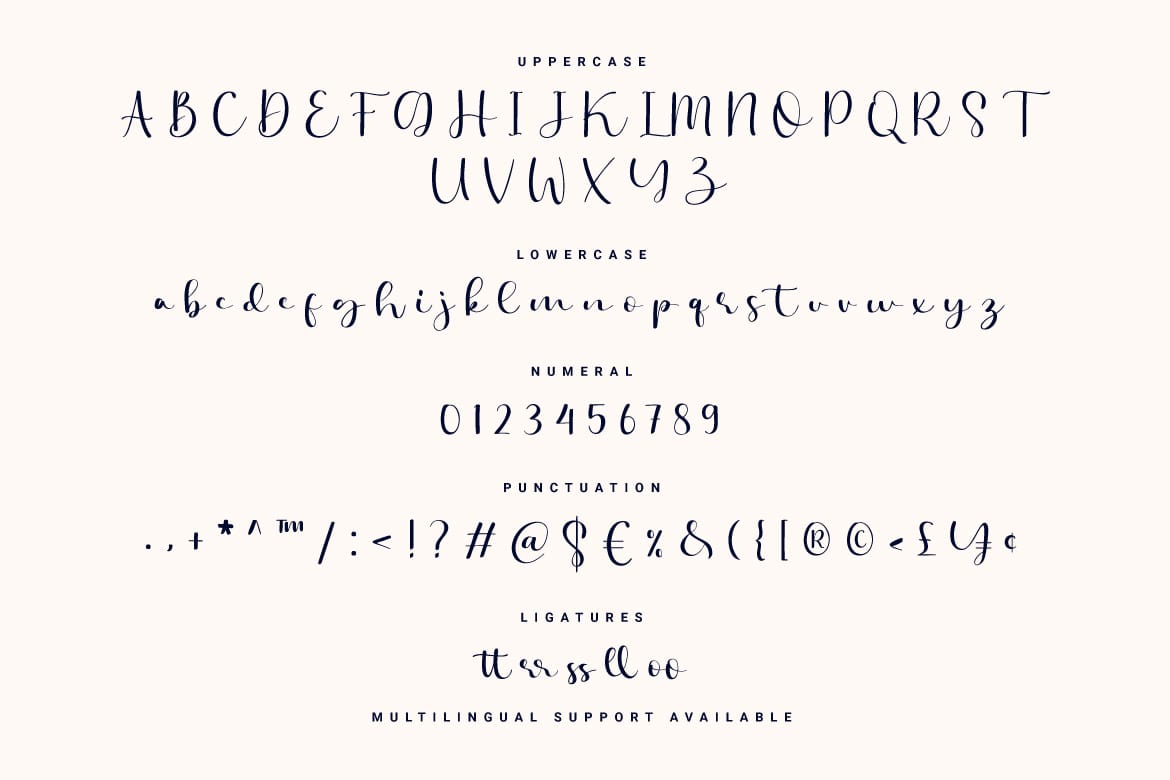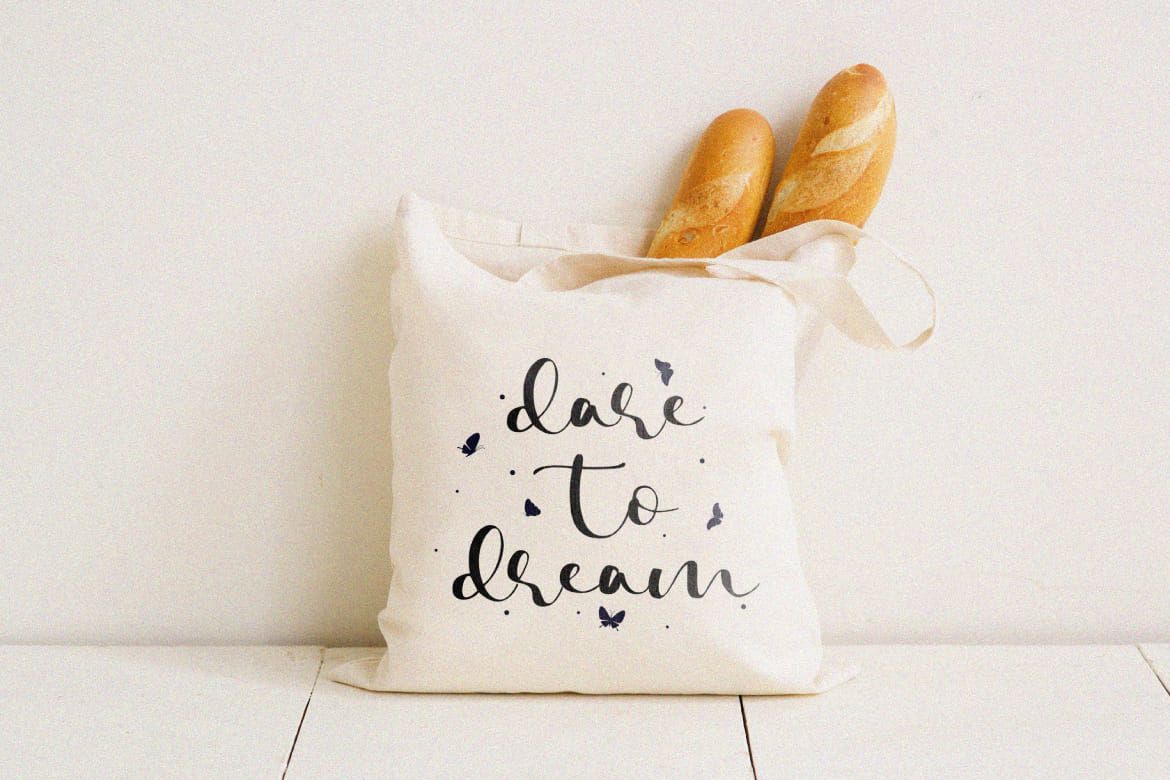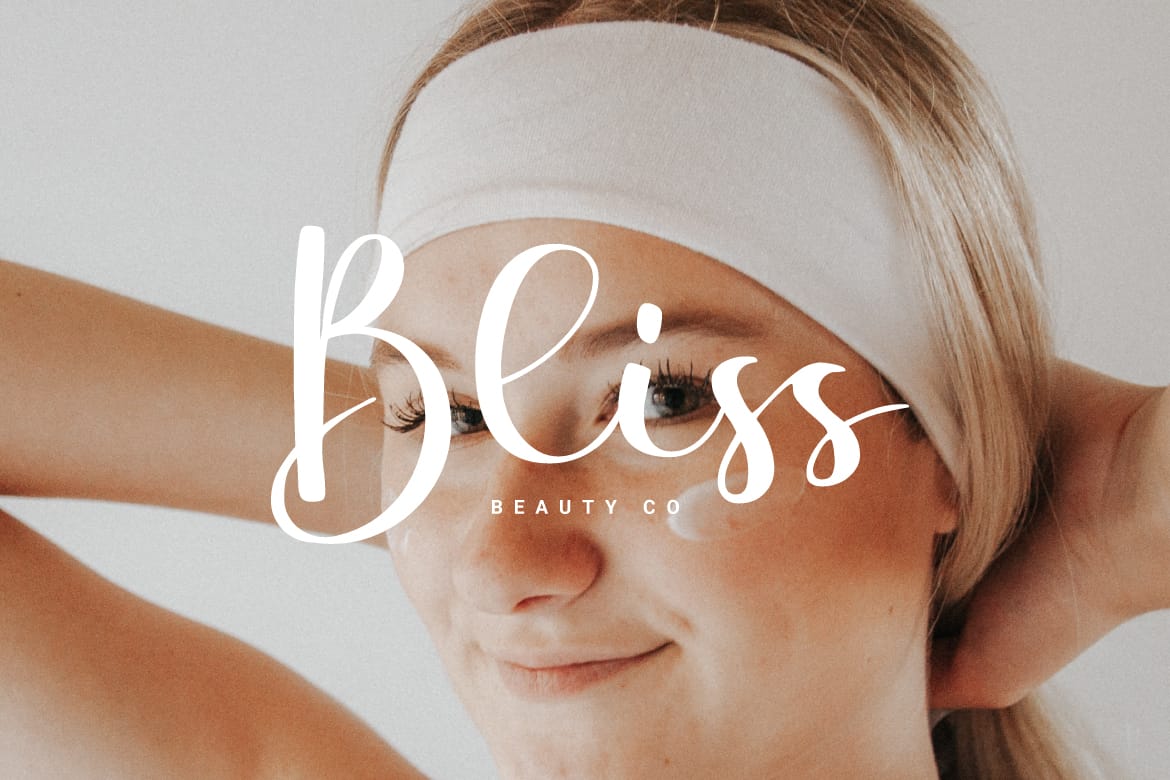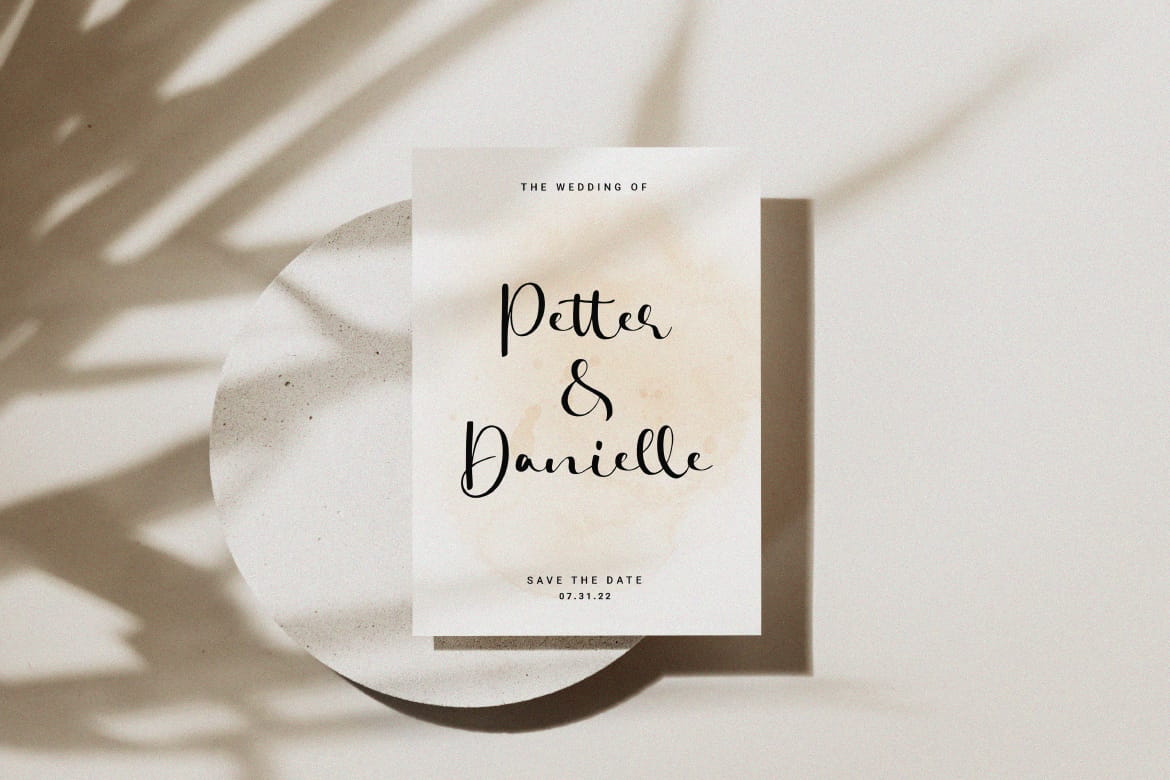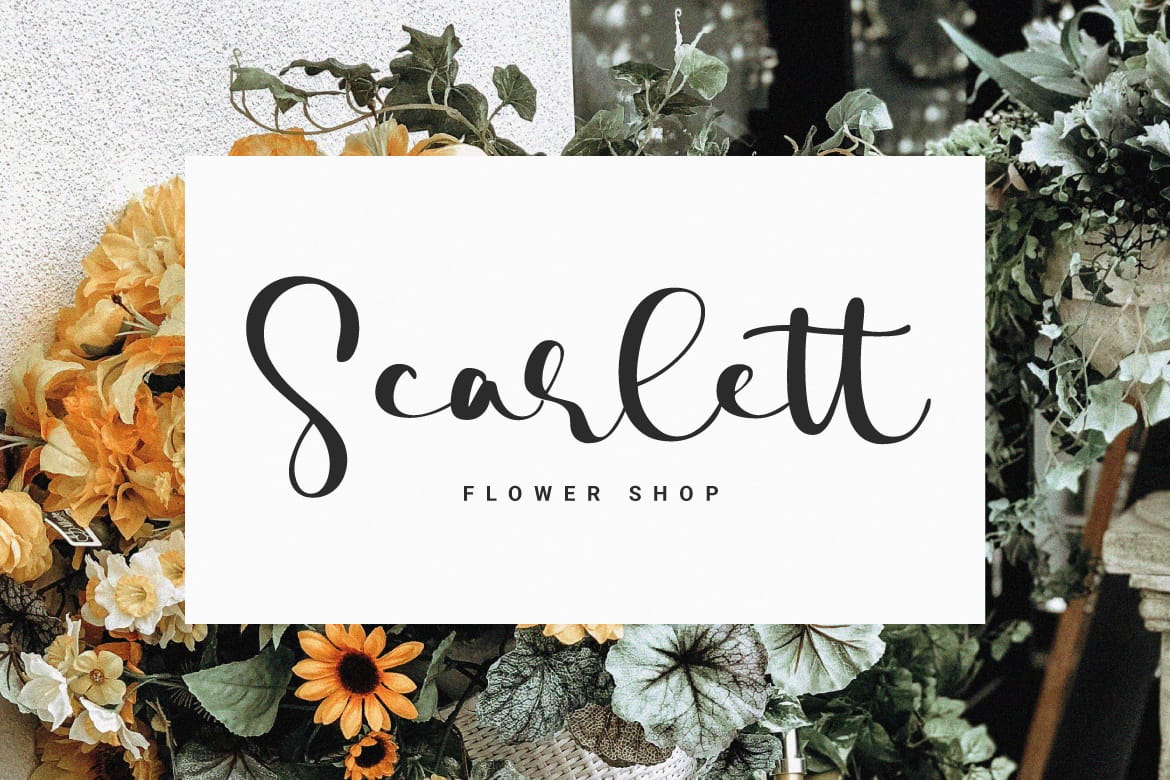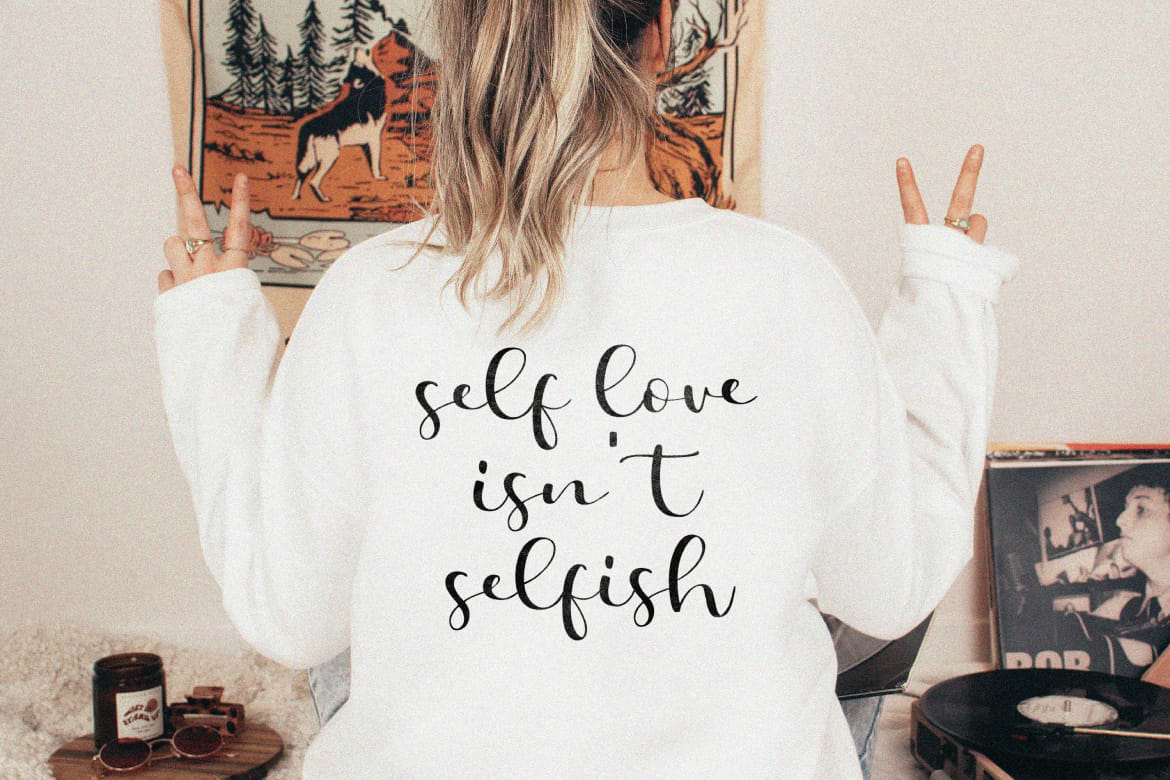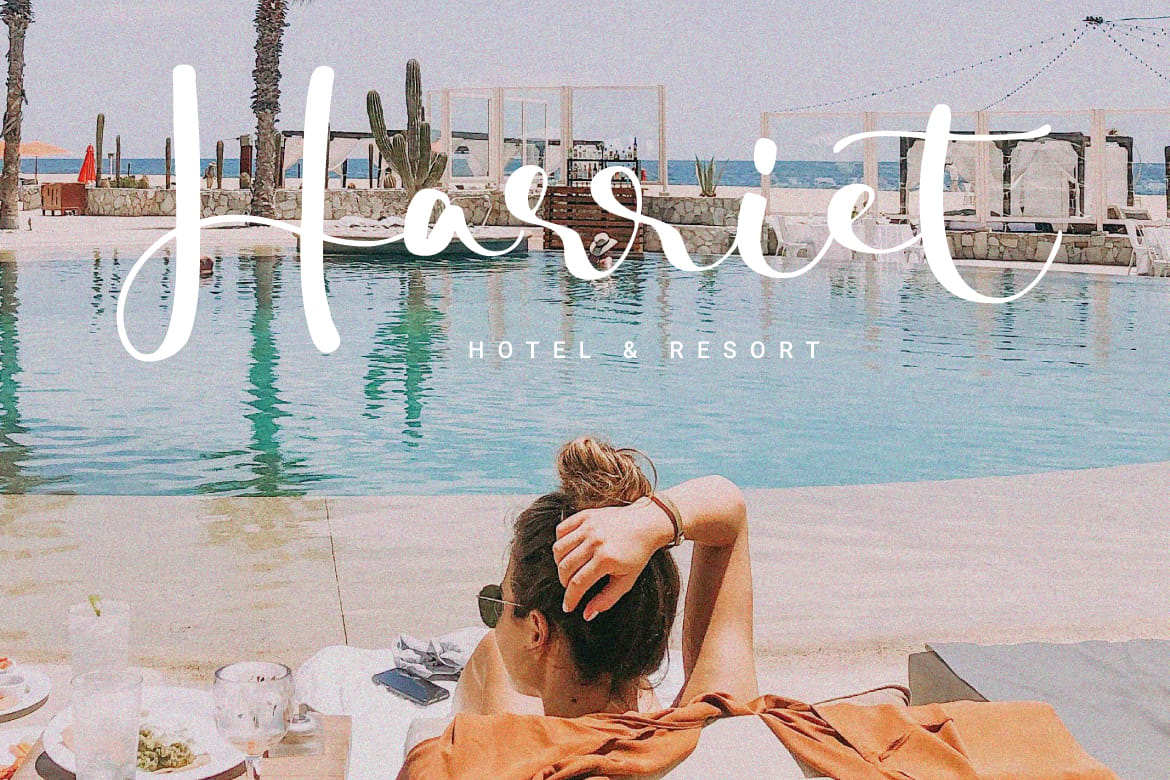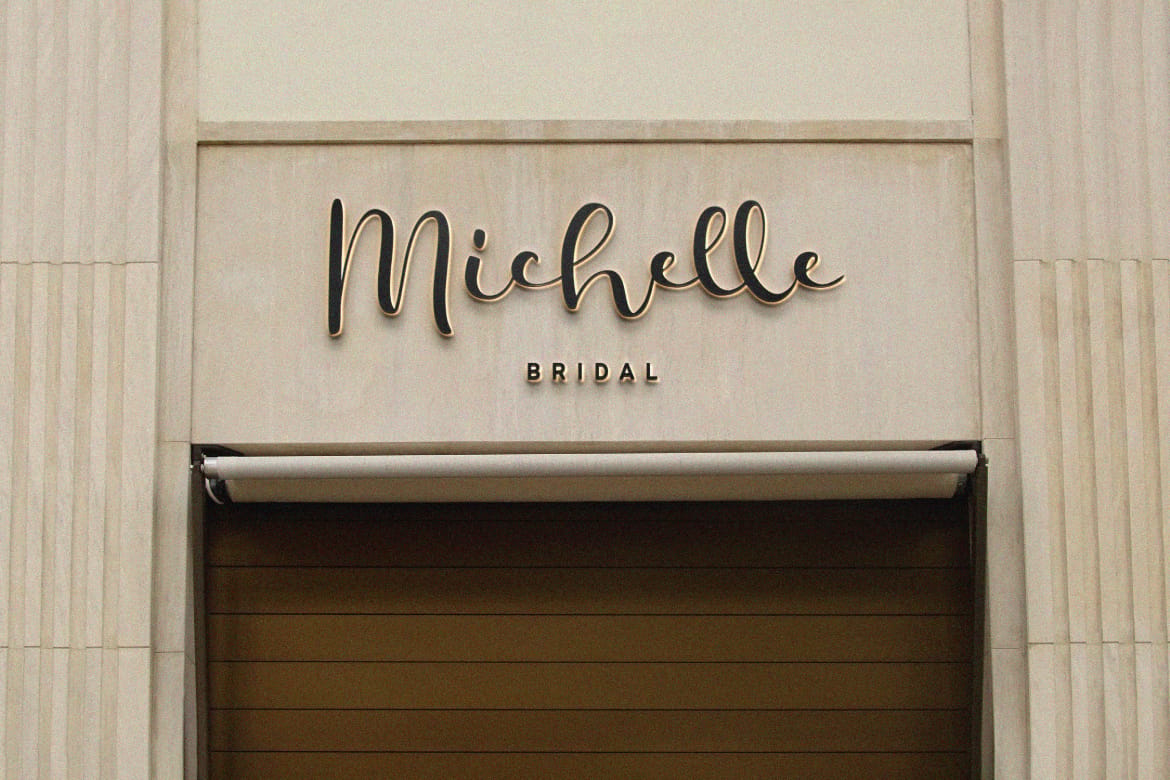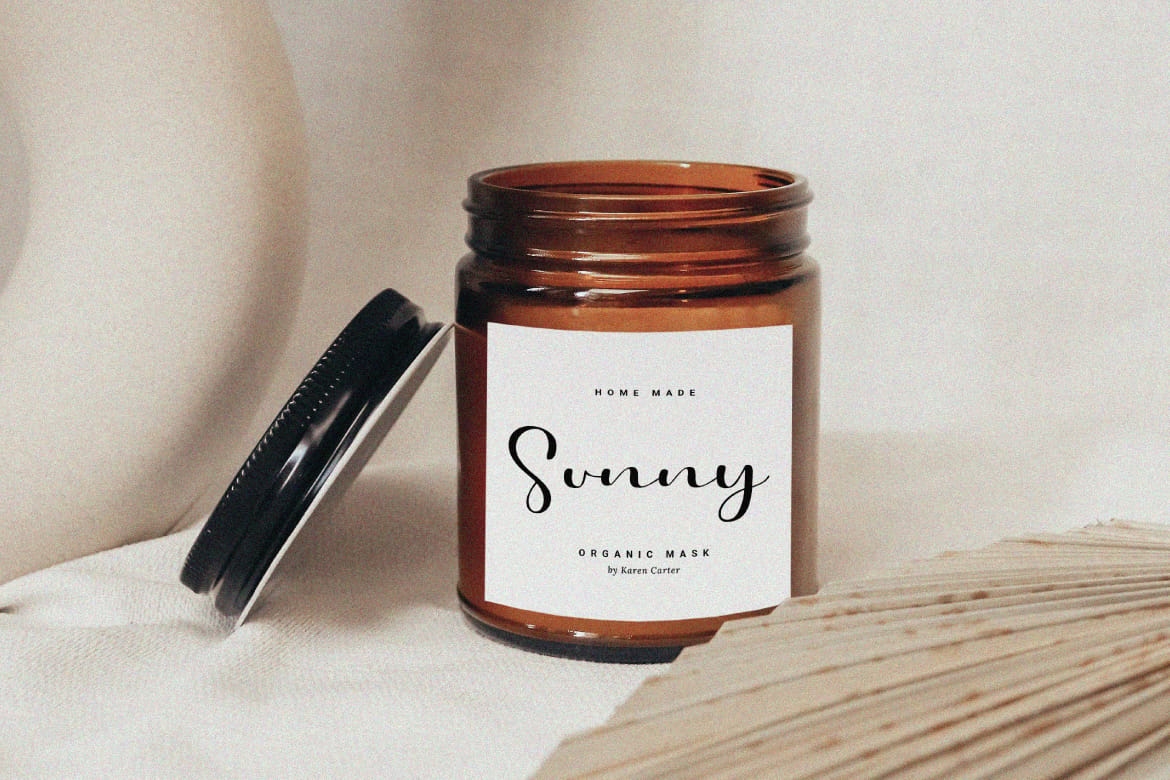
Really Darling - Handwritten Font.
This beautiful handwritten script font is ready to accompany your charming design projects. The scratches are soft and there are ligatures that make it look more natural. Can be used in wedding invitation designs, branding, logotypes, merchandise and much more.
Features: Uppercase, Lowercase, Numeral, Punctuation, Multilingual & Ligatures.
- Natural ligatures included
- Perfect for weddings and branding